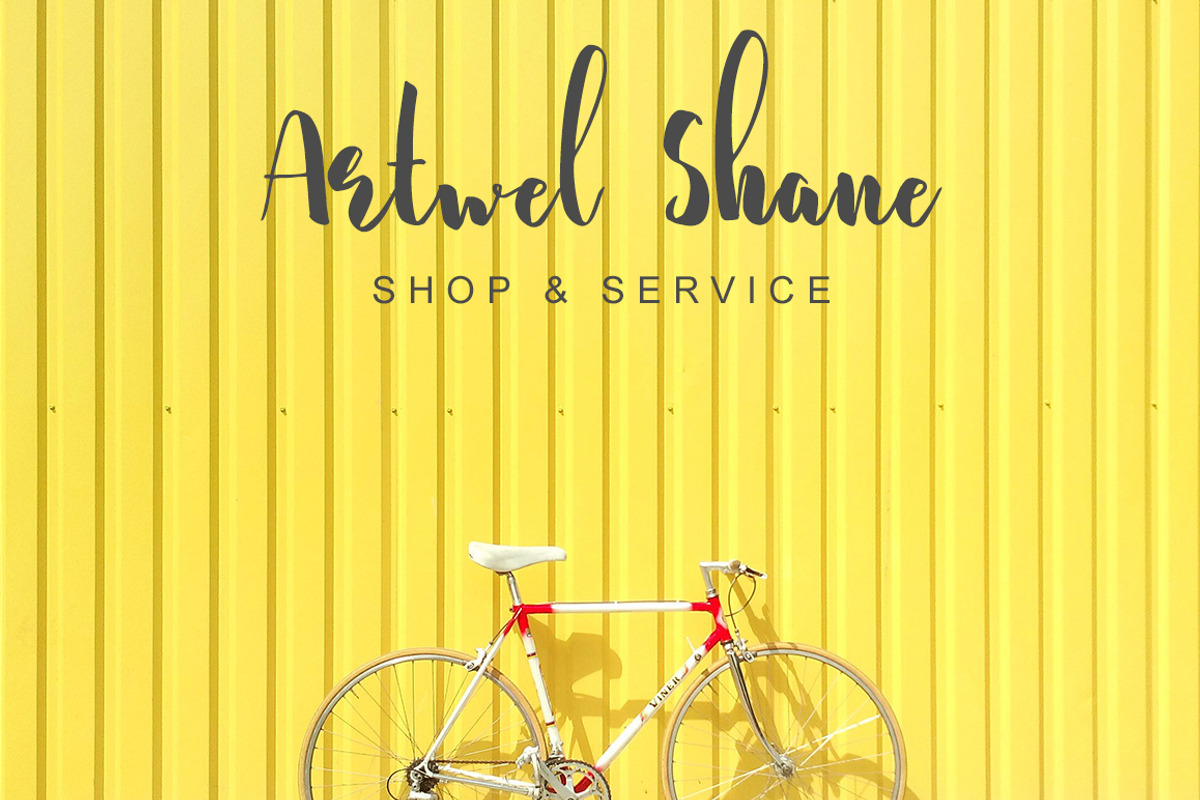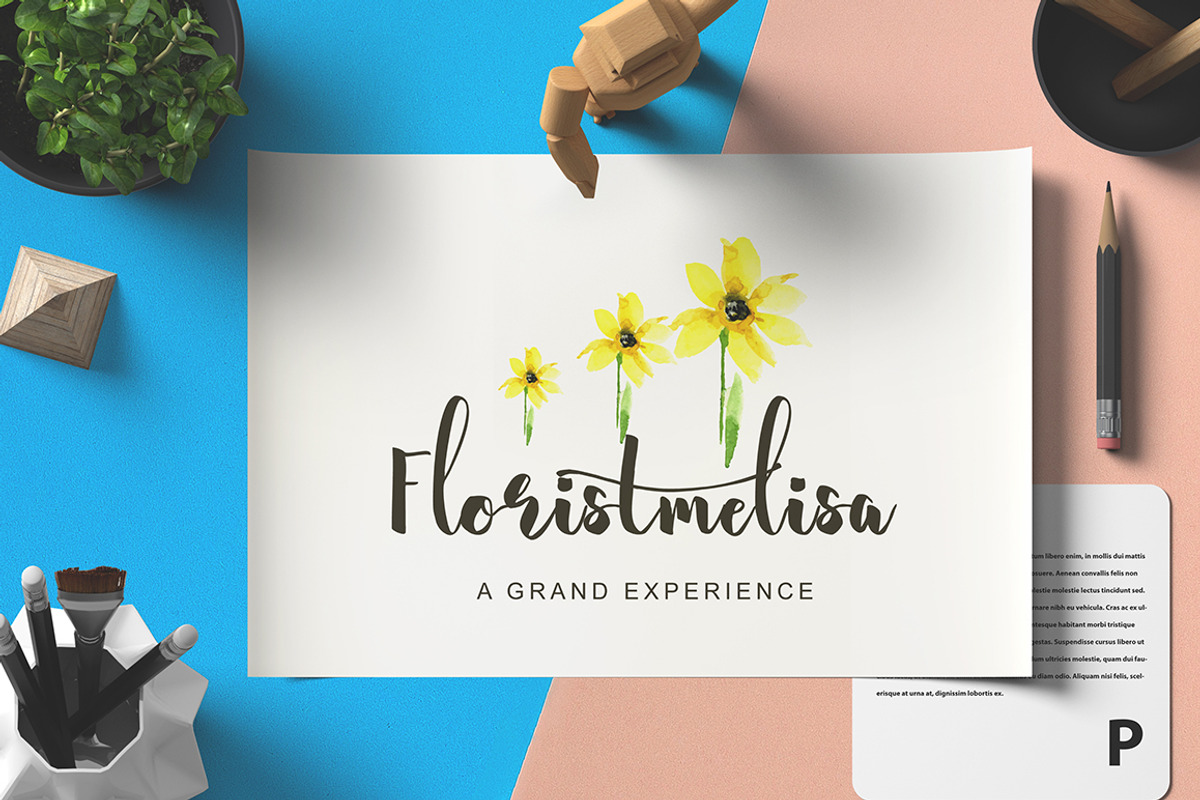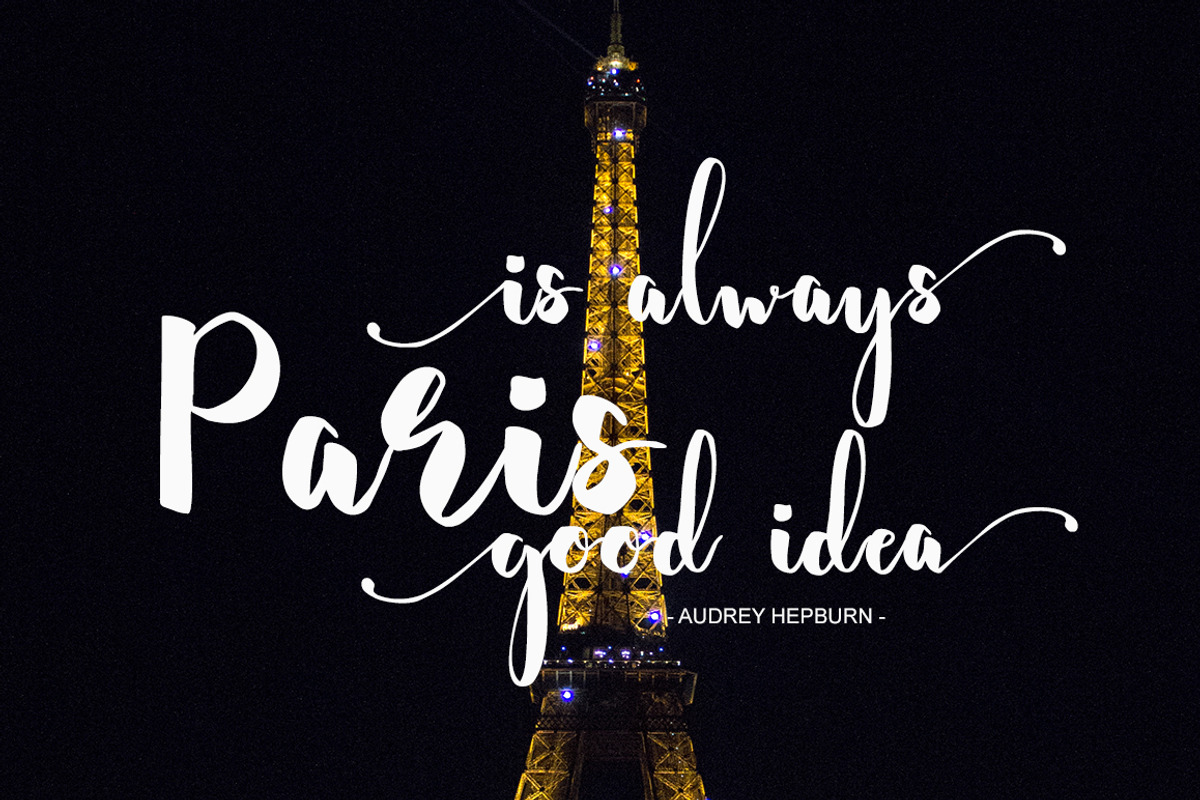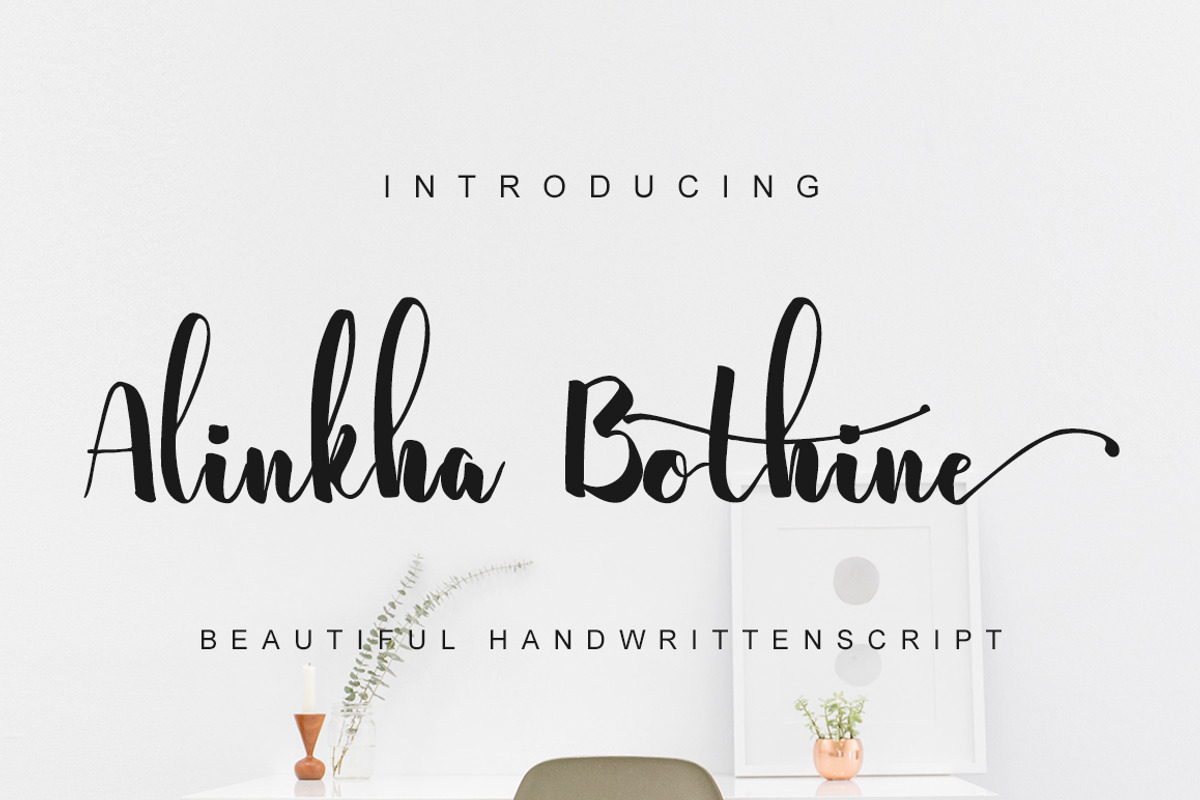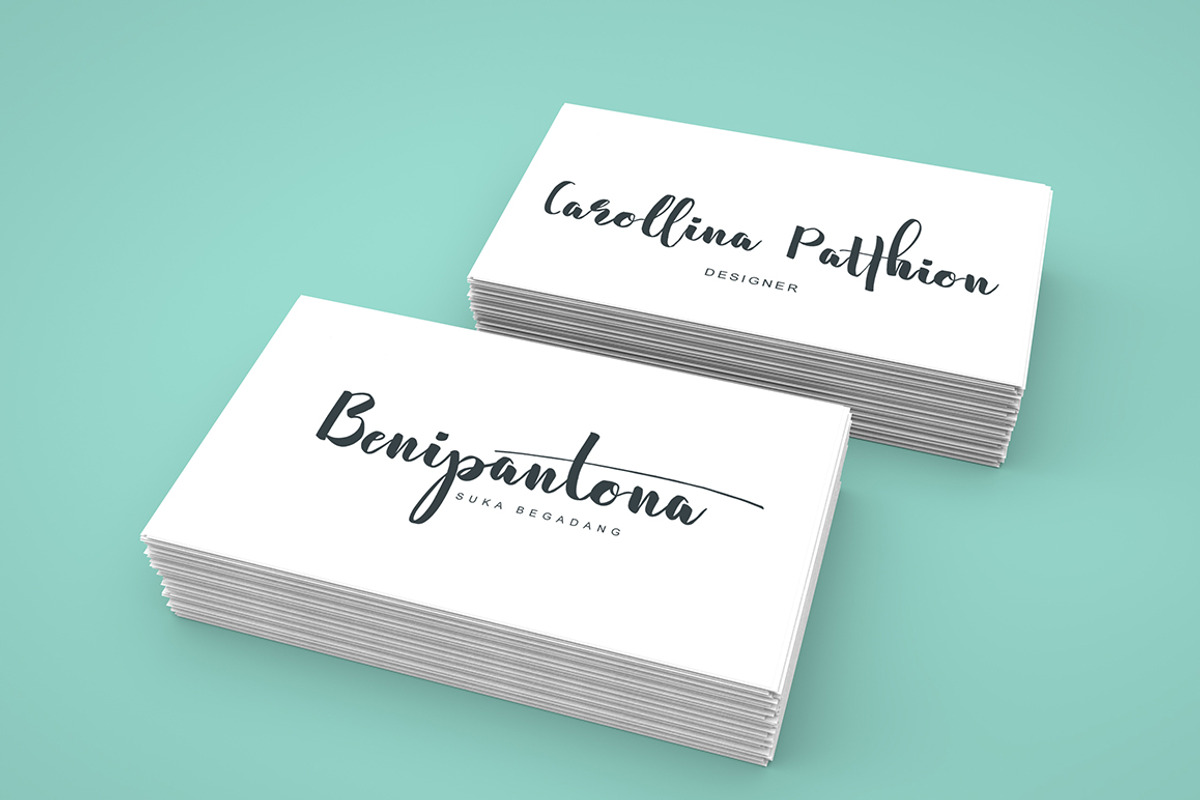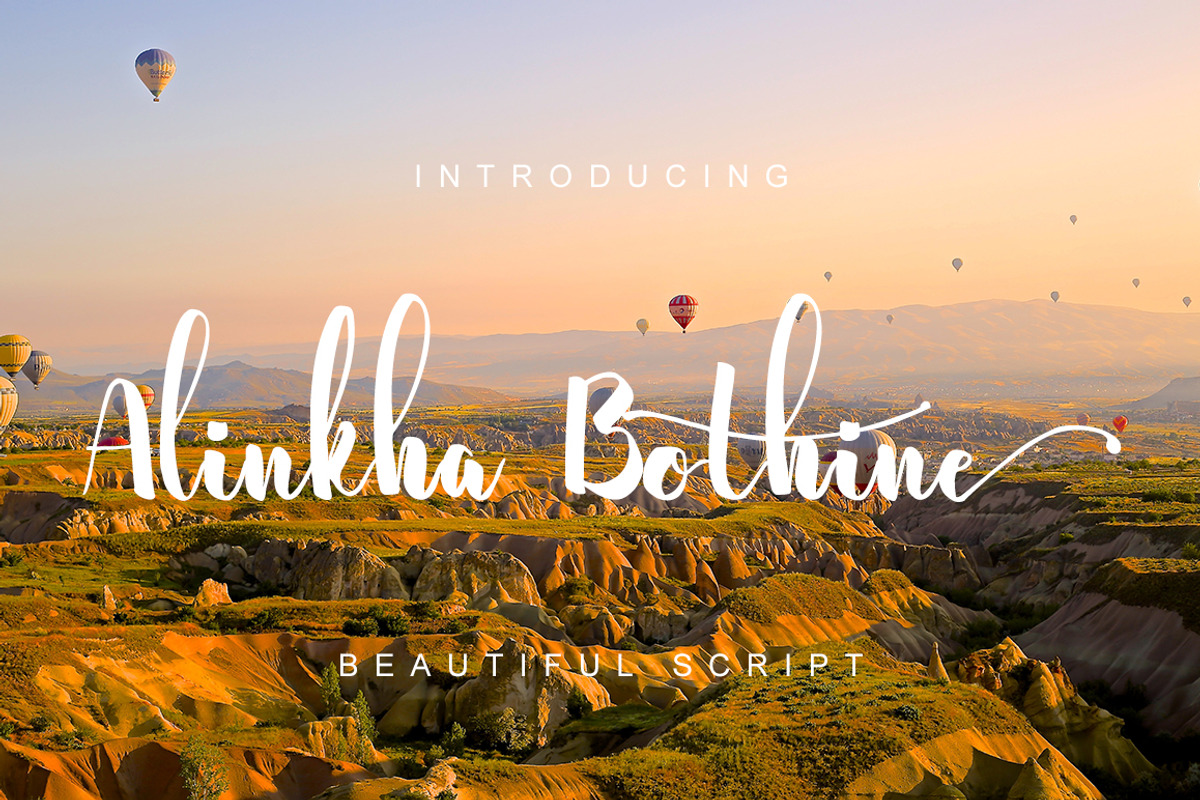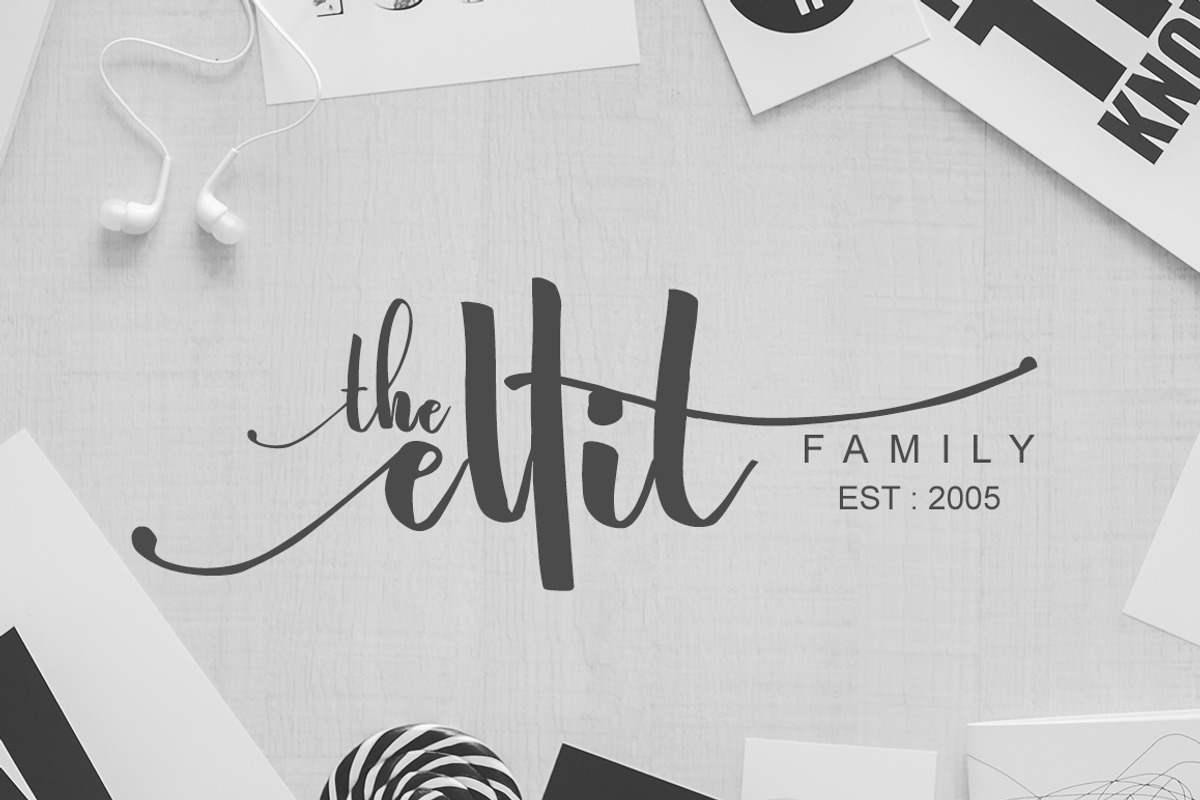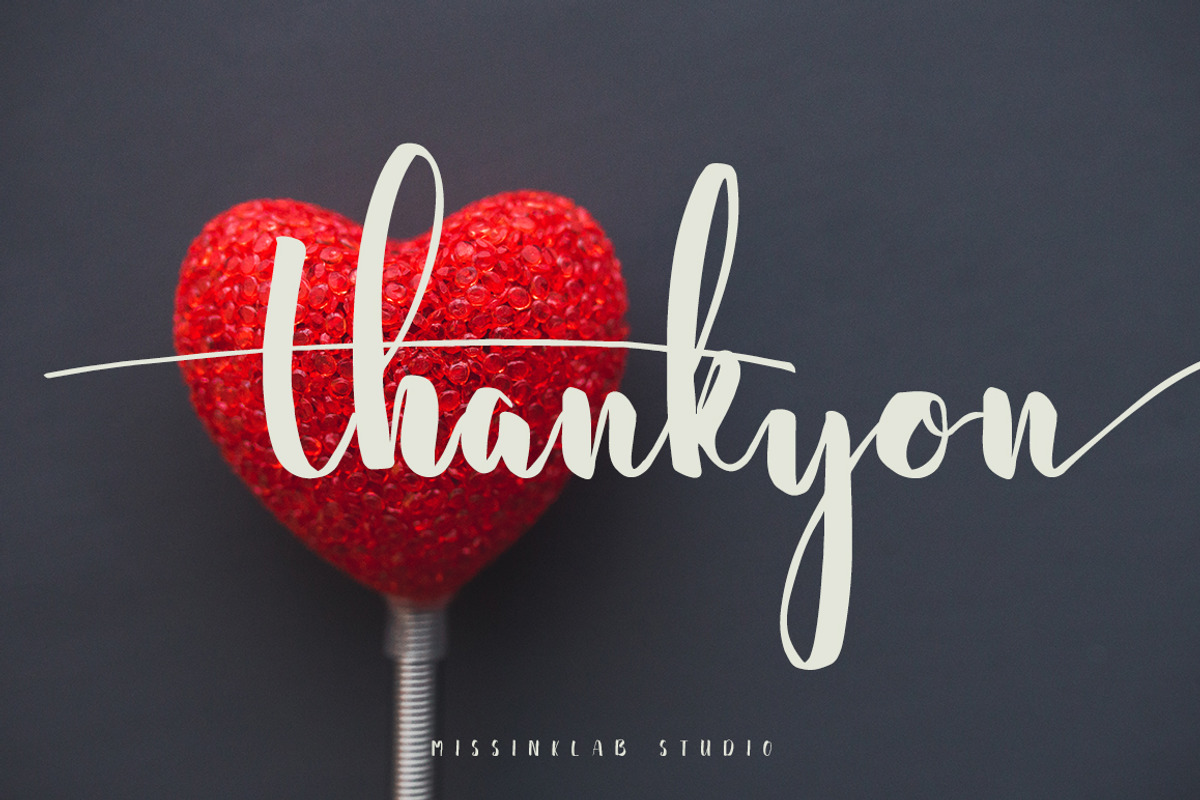
Alinkha Bothine
Alinkha Bothine is beautiful script font. With modern script style this font will perfect for many different project ex: quotes, blog header, poster, wedding, branding, logo, fashion, apparel, letter, invitation, stationery, etc.